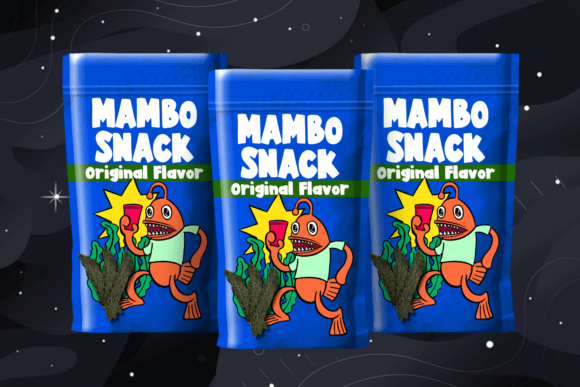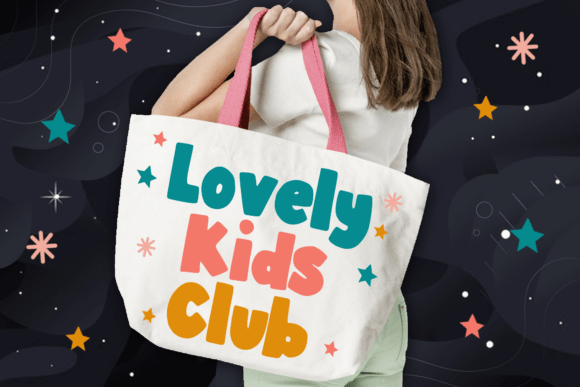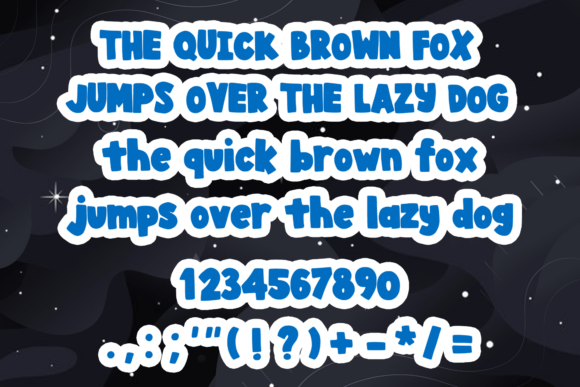
Introducing Happy Playful Font: The Ultimate Mood-Booster for Designers and Crafters
Are you tired of using the same old fonts that lack personality and flair? Look no further than the Happy Playful font, a deligthfully dynamic typeface that’s sure to inject a dose of fun and whimsy into your designs. With its high-spirited richness and cartoon display style, Happy Playful is more than just a font – it’s a mood.
The Power of Playfulness in Design
Playfulness in design is all about evoking emotions and creating a connection with your audience. Happy Playful font is specifically crafted to bring a sense of joy and exuberance to your designs, making it perfect for projects that require a lighthearted and carefree touch. Whether you’re designing for t-shirts, clothing, book covers, summer party decorations, greeting cards, or stickers, Happy Playful is the perfect companion to help you create breathtaking designs that spark imagination and delight.
What Makes Happy Playful Font So Special?
So, what sets Happy Playful apart from other fonts? Here are just a few reasons why this font is a game-changer for designers and crafters:
- Delightfully dynamic: Happy Playful font is bursting with energy and movement, making it perfect for designs that require a sense of playfulness and spontaneity.
- High-spirited richness: With its cartoon display style, Happy Playful font adds a touch of whimsy and fantasy to any design, making it perfect for projects that require a sense of imagination and creativity.
- Effortless fun: Happy Playful font is incredibly easy to use and pairs perfectly with a wide range of design styles, making it a versatile addition to any design toolkit.
Endless Design Possibilities with Happy Playful Font
The possibilities are endless when it comes to designing with Happy Playful font. Here are just a few ideas to get you started:
- T-shirts and clothing: Add a playful touch to your apparel designs with Happy Playful font, perfect for kids’ wear, party tees, or fun casual wear.
- Book designs: Bring a sense of whimsy to your book covers, illustrations, or interior designs with Happy Playful font, perfect for children’s books, comics, or graphic novels.
- Summer party decorations: Create eye-catching party decorations, banners, or signs with Happy Playful font, guaranteed to add a splash of fun to any celebration.
- Greeting cards and stickers: Add a personal touch to your greeting cards, gift tags, or stickers with Happy Playful font, perfect for birthdays, holidays, or everyday occasions.
Experience the Fun of Designing with Happy Playful Font
Happy Playful font is more than just a typeface – it’s an experience. With its joyful atmosphere and playful vibe, this font is sure to inspire you to create designs that bring a smile to people’s faces. So why settle for boring, generic fonts when you can add a splash of happiness to your designs with Happy Playful?
Whether you’re a designer, crafter, or DIY enthusiast, Happy Playful font is the perfect addition to your creative toolkit. So go ahead, get creative, and experience the fun of designing with Happy Playful font!
In conclusion, Happy Playful font is a game-changer for designers and crafters looking to add a touch of whimsy and fun to their designs. With its delightfully dynamic style, high-spirited richness, and effortless fun, this font is sure to become your go-to companion for all your design projects. So why wait? Download Happy Playful font today and start creating breathtaking designs that spread joy and happiness!